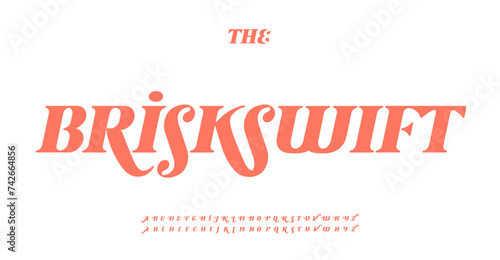
Elegance serif font with alternate letters with fluid decorative curves swash tails. Refined slick alphabet with luxurious swirls for posh logo, headline, monogram. Vector typeset.